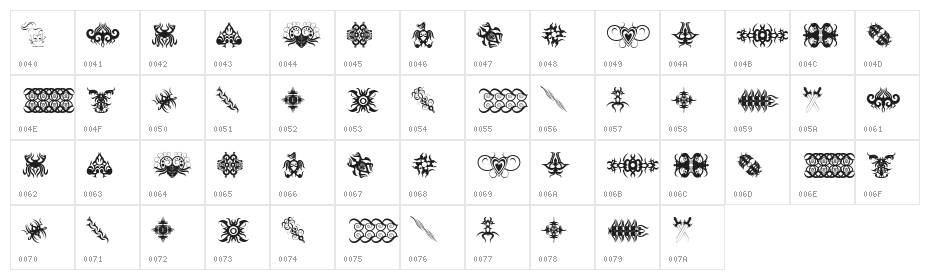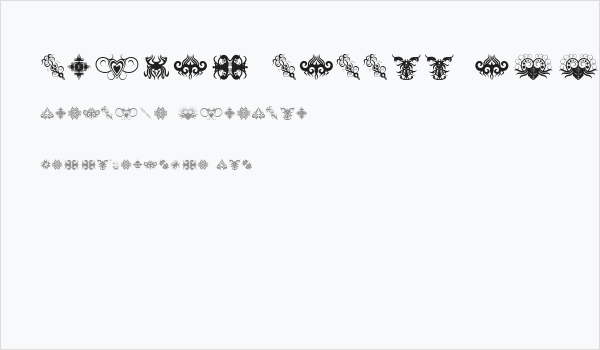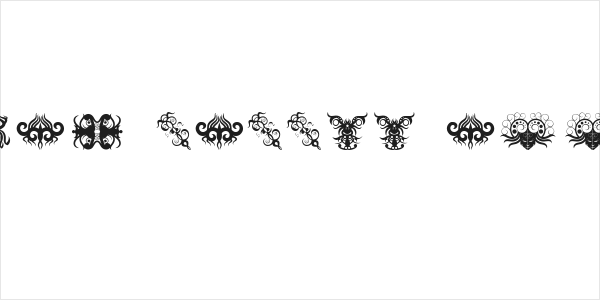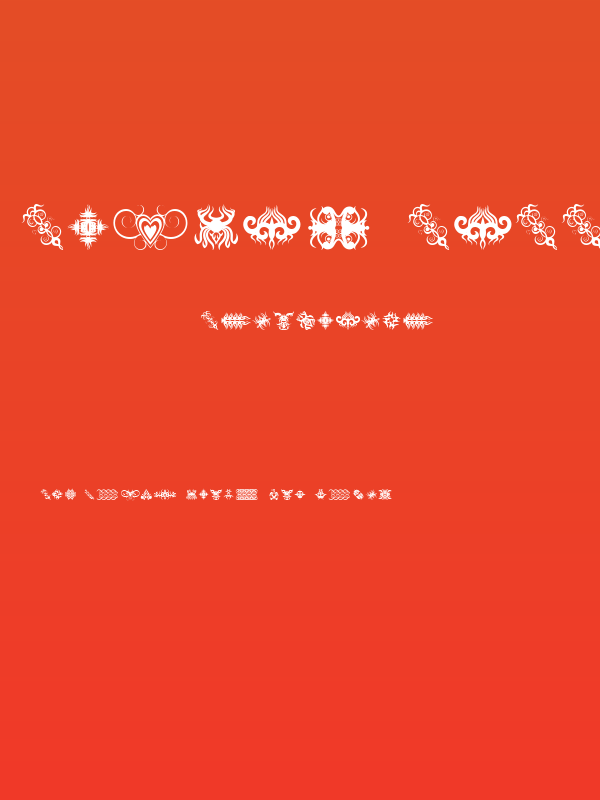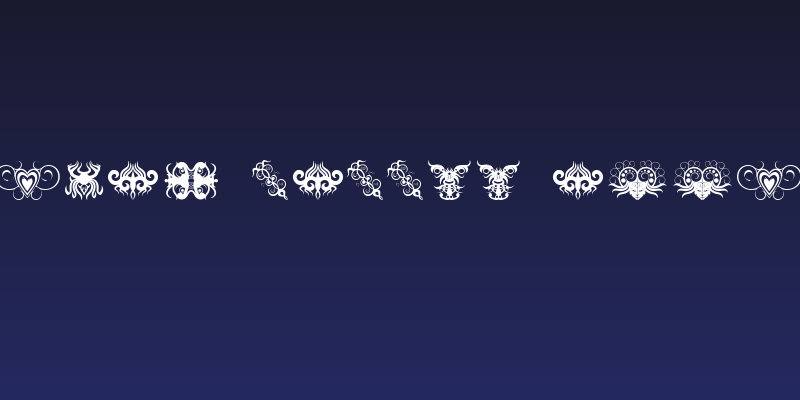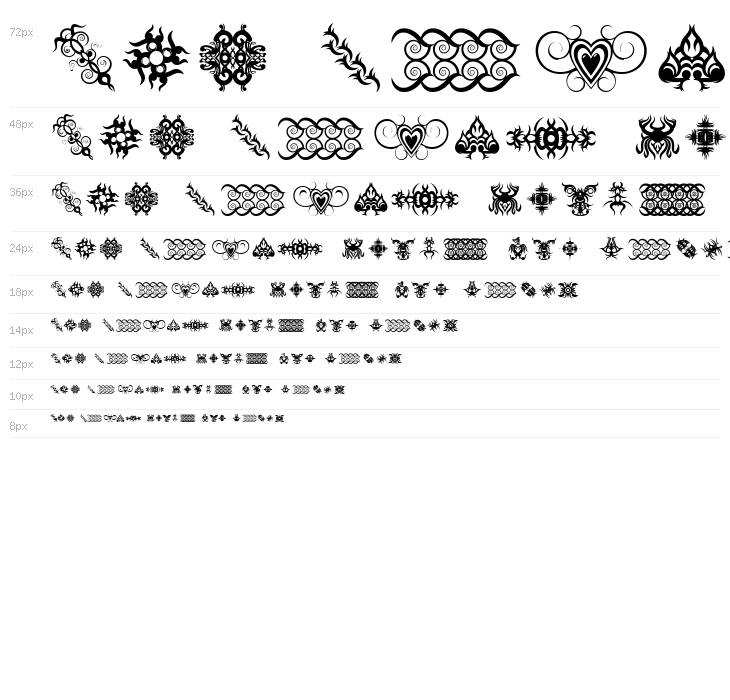
Tribal Tattoo Addict Font
Tribal Tattoo Addict Description
A highly decorative and intricate set of tribal-inspired tattoo glyphs, featuring bold, symmetrical, and abstract motifs with sharp points, curves, and ornamental flourishes. Each character is unique, resembling tattoo flash art rather than traditional letterforms.
| Overall Style | Decorative, Tribal, Ornamental |
| Use Case | Logos, Posters, Tattoos, Decorative elements |
| Proposed Projects | Tattoo design mockups, poster art, alternative branding, decorative borders, event flyers. |